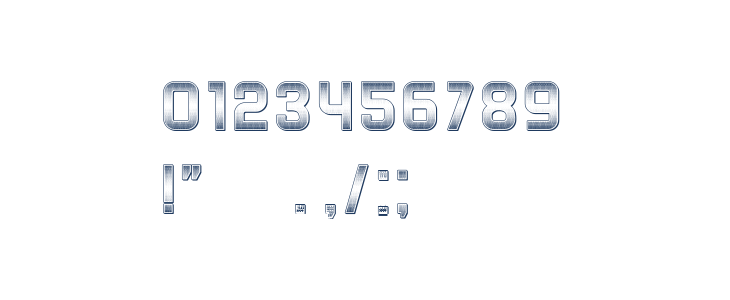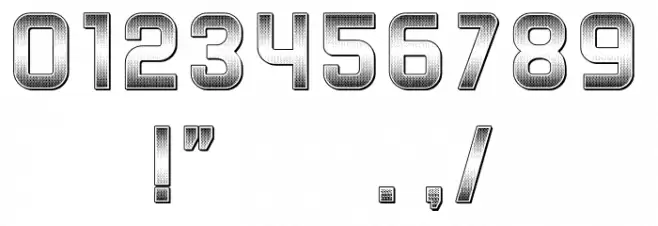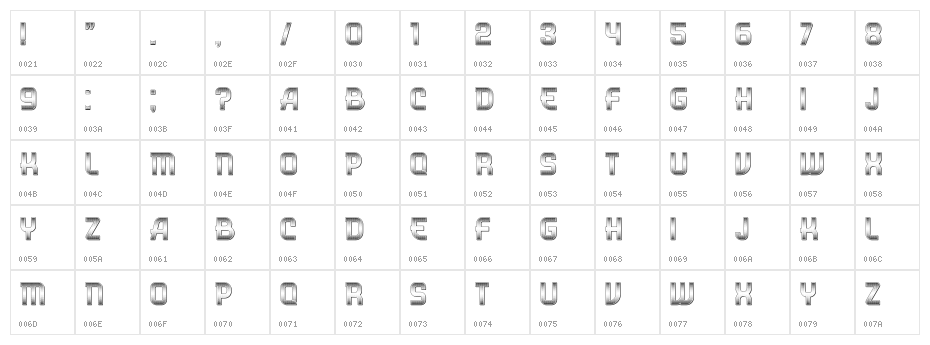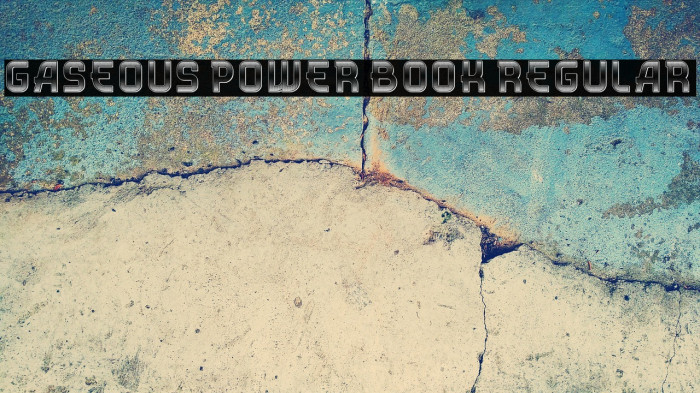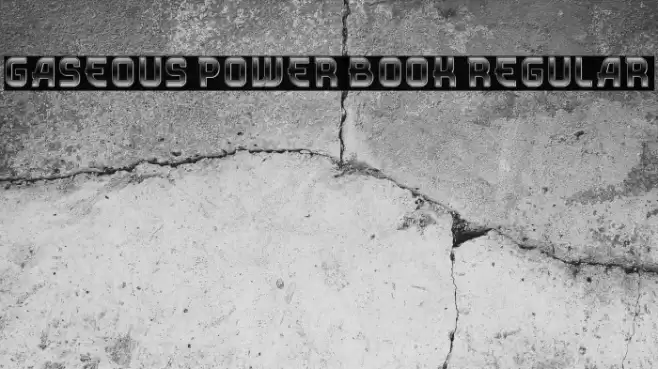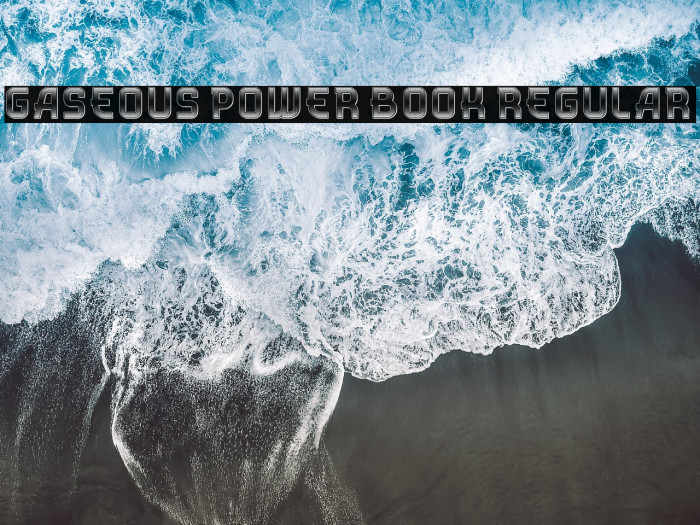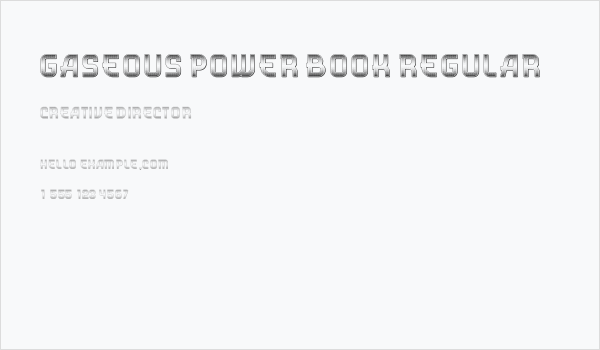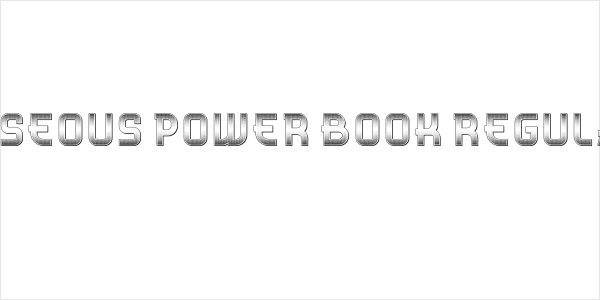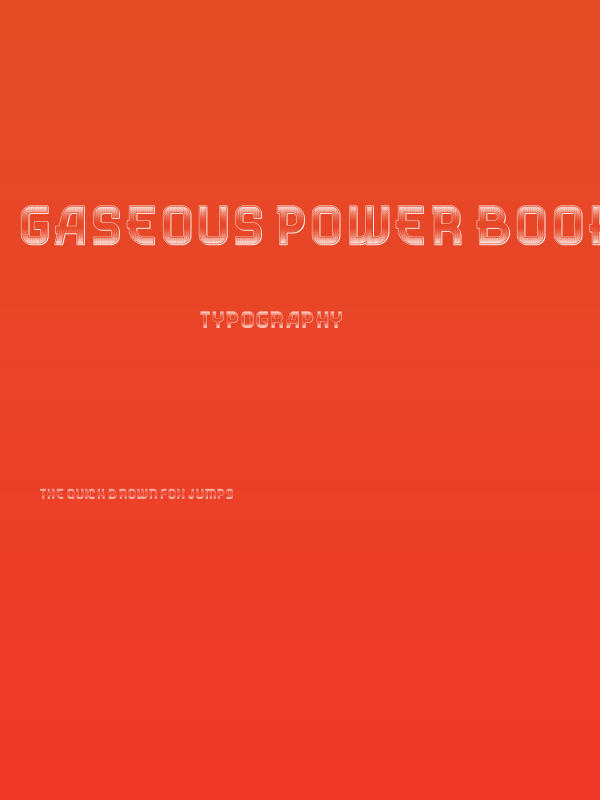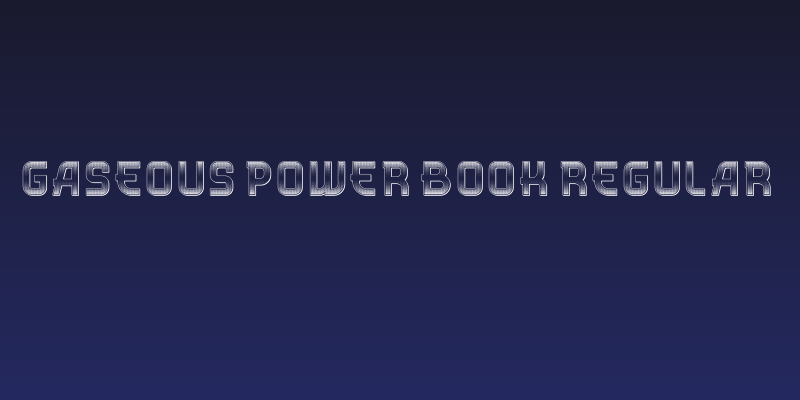
Gaseous Power Book Regular Font
Gaseous Power Book Regular Description
This font features a bold, industrial design with a three-dimensional effect created by shading and contour lines. The characters are uppercase and have a strong, geometric structure, giving them a robust and powerful appearance. The shading adds depth and a sense of movement, making it suitable for attention-grabbing headlines or titles. The font's style is reminiscent of vintage machinery or retro-futuristic aesthetics, with a modern twist. The numerals and special characters maintain the same bold and dynamic style, ensuring consistency across all text elements.
| Overall Style | Retro-Futuristic |
| Proposed Projects | Ideal for projects requiring a strong visual impact, such as posters, logos, branding, and packaging design. |